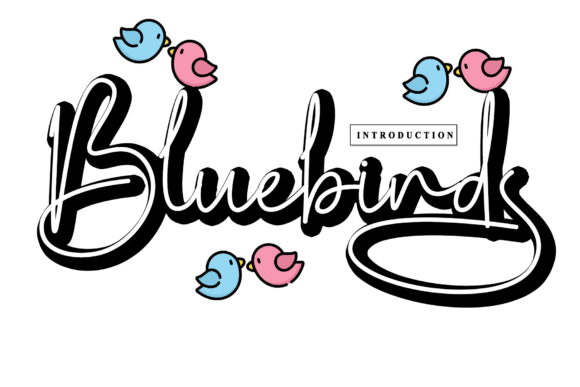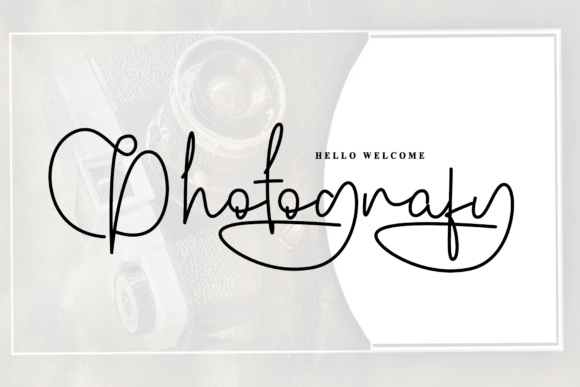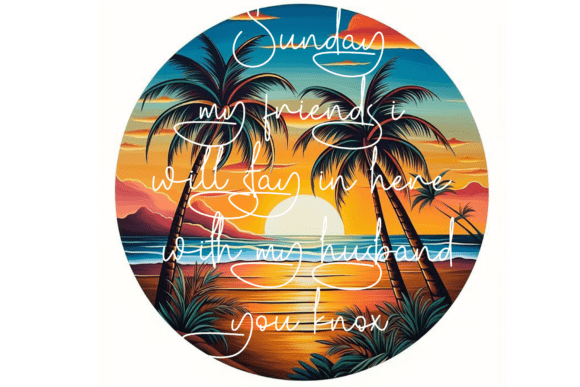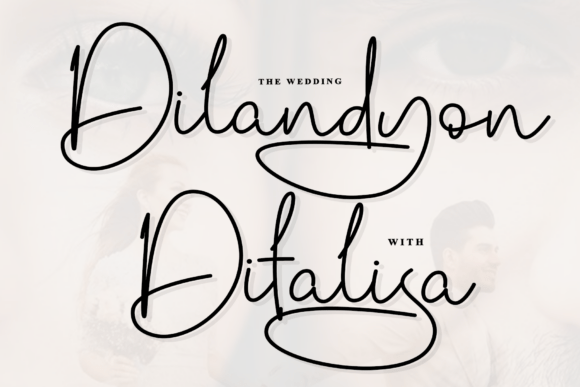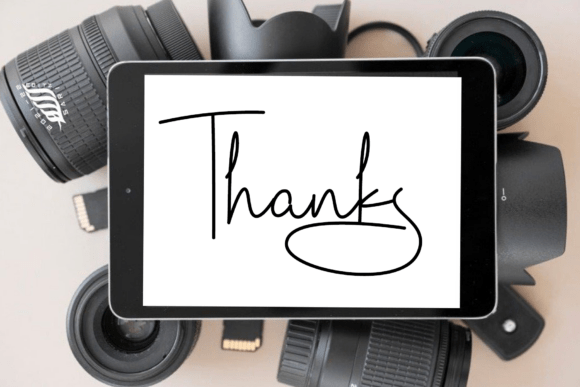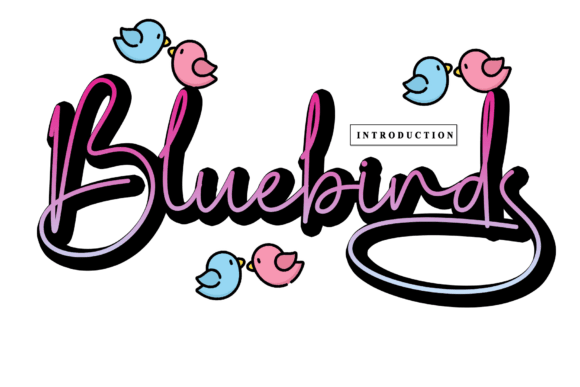
The Elusive Perfect Font: My Encounter with Bluebirds
I’ll never forget the struggle I faced while working on a branding project for a local artisanal bakery. The client wanted a font that exuded warmth, sophistication, and a touch of handcrafted charm. I scoured the internet, tried out countless fonts, but nothing seemed to fit the bill. That was until I stumbled upon Bluebirds Font. ✨
An Honest Review of Bluebirds Font
- 💫 Sophisticated and rhythmic script style that adds a touch of elegance to any design
- ✅ Warm, organic aesthetic that feels like a breath of fresh air
- 🎨 Sweeping, looping ascenders that create a sense of customized, artisanal artistry
- 🔍 Perfect for artisanal food branding, boutique product packaging, upscale lifestyle marketing, and creative editorial titles
While Bluebirds Font is an amazing addition to any design project, there are a few things to keep in mind: 🤔
- ⚠️ Some of the more intricate glyphs might not display correctly on older systems or browsers
- ⚠️ The font’s script style can be a bit tricky to read in large blocks of text
A Practical Guide to Using Bluebirds Font
The Story Behind Bluebirds Font
Bluebirds Font was designed by a team of typographers who wanted to create a font that captured the essence of handcrafted artistry. Inspired by the flowing lines and organic shapes of calligraphy, they crafted a font that’s both elegant and approachable. The result is a font that’s perfect for adding a touch of sophistication to any design project. 💫
Q: What type of projects is Bluebirds Font best suited for?
A: Bluebirds Font is perfect for artisanal food branding, boutique product packaging, upscale lifestyle marketing, and creative editorial titles.
Q: Does Bluebirds Font come with OpenType features?
A: Yes, Bluebirds Font includes a range of OpenType features, including stylistic alternates, glyphs, and ligatures.
Q: Is Bluebirds Font easy to read?
A: Bluebirds Font is designed to be elegant and refined, but it can be a bit tricky to read in large blocks of text. It’s best used for headlines, titles, and short paragraphs.